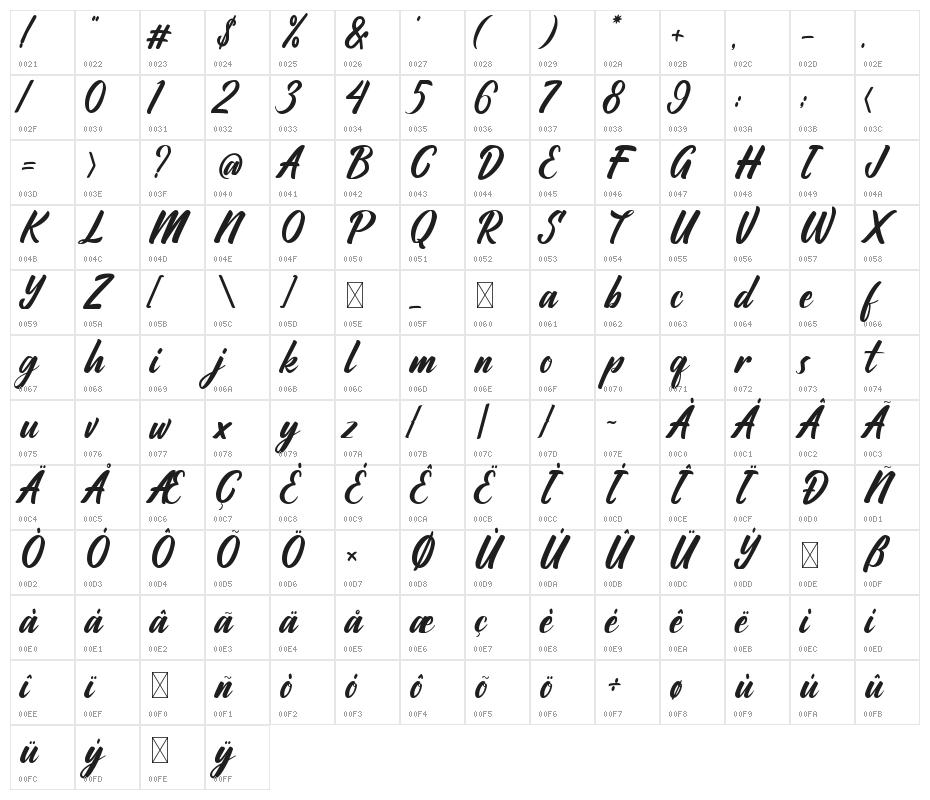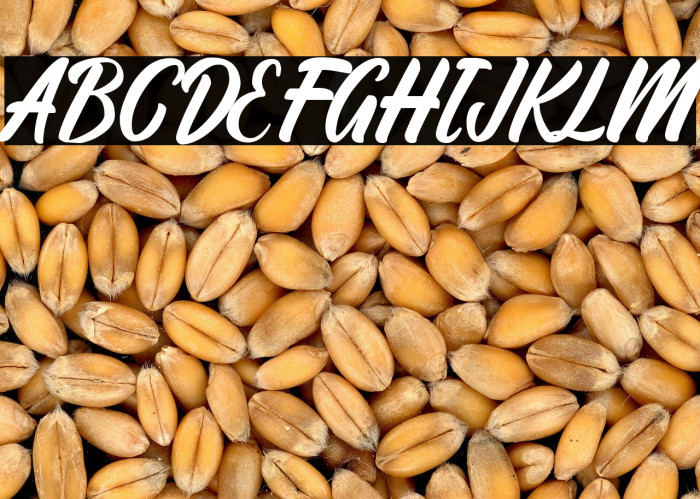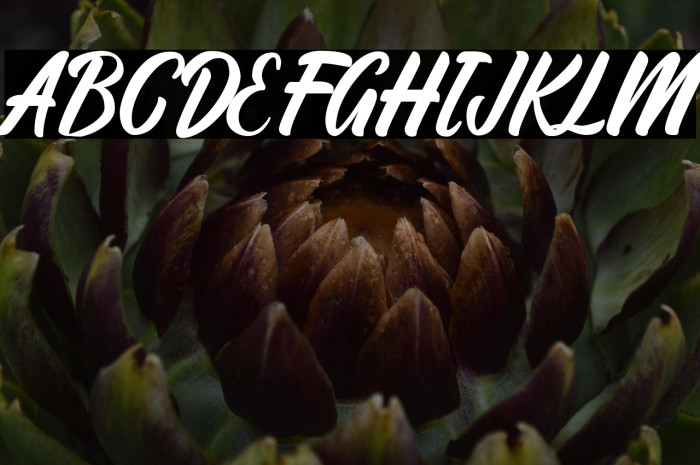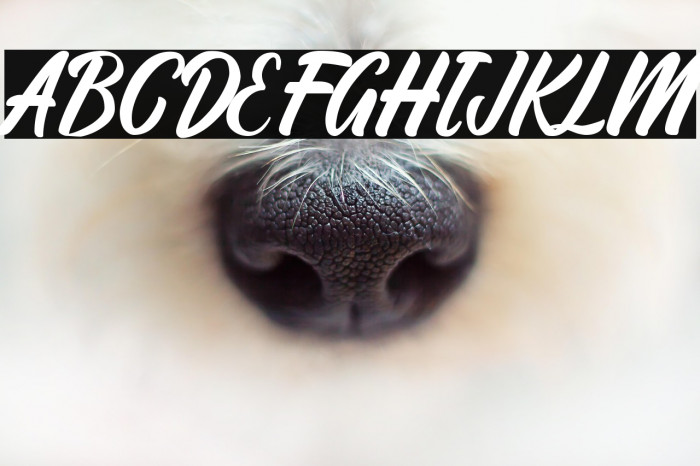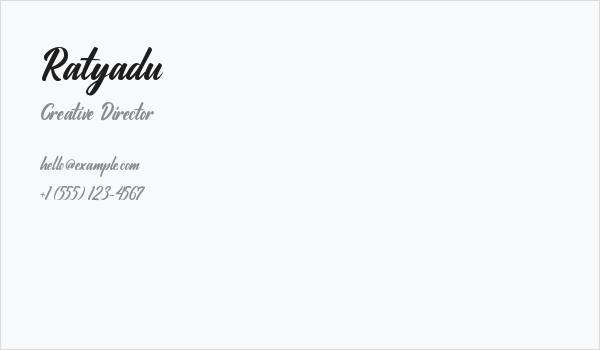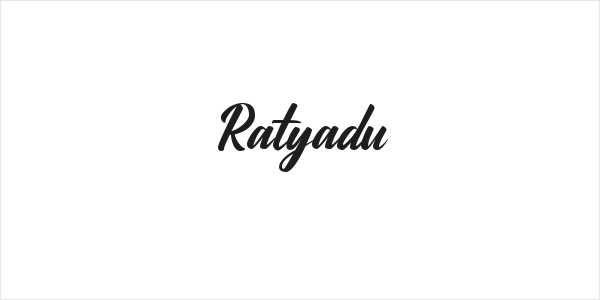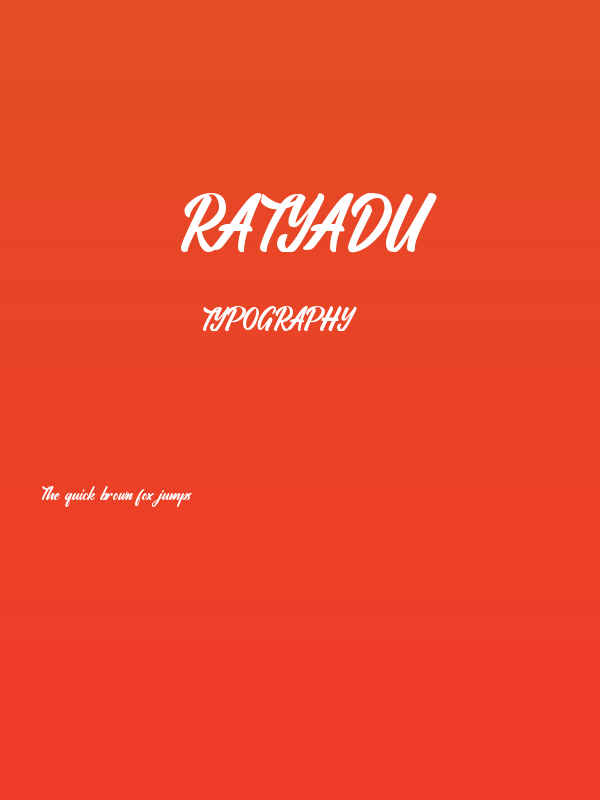
Ratyadu Font
Ratyadu Description
This font features a bold, flowing script style that exudes elegance and dynamism. The characters are connected in a cursive manner, giving it a handwritten appearance. The uppercase letters are slightly larger and more pronounced, while the lowercase letters maintain a consistent flow. The numbers and special characters are designed to match the overall aesthetic, ensuring a cohesive look. The strokes are thick, providing a strong visual impact, and the overall design is both stylish and legible.